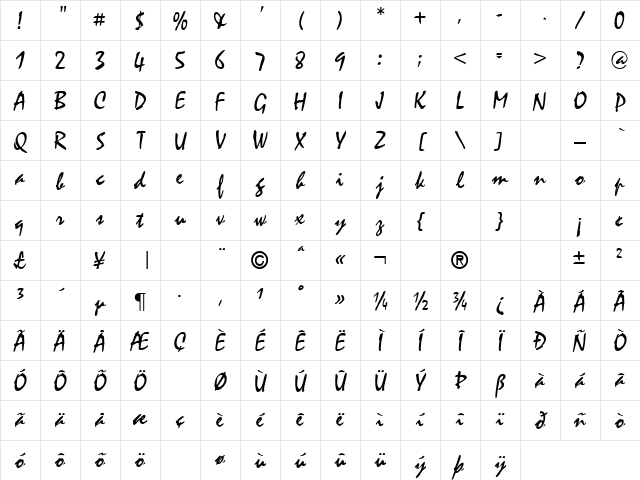
Comatose 1 Regular Free Font
Comatose 1 Regular
Design Context for Comatose 1
Comatose 1 is a composed and adaptable typeface that performs quietly and consistently across a wide range of design contexts.